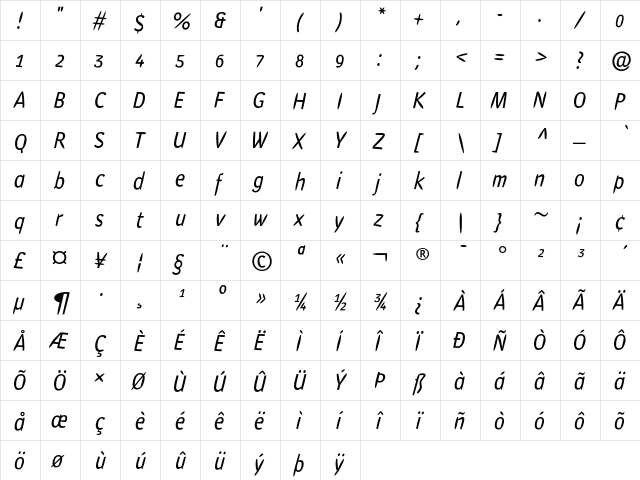
HavannaEF RegularItalic Font Preview
HavannaEF RegularItalic
HavannaEF RegularItalic Font Details
| Style | RegularItalic |
Design Context for HavannaEF Typeface
HavannaEF takes a measured approach to typography — its balanced proportions and neutral character make it a reliable workhorse for both digital and print work. The slanted form adds forward momentum and visual energy.
Pro Tip: Try HavannaEF for annotation and caption copy alongside an upright companion — the contrast in angle creates a dynamic but ordered typographic system.